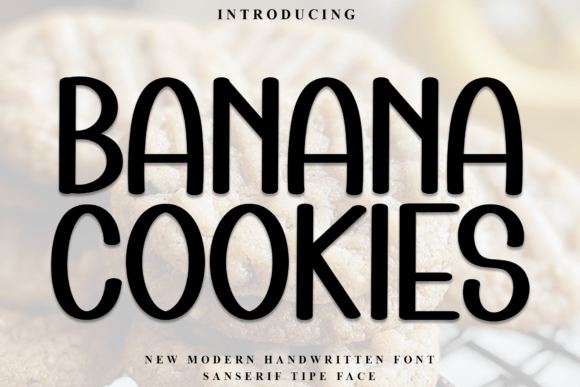
Introducing Banana Cookies Font: The Festive Typeface for Holiday Designs
The holiday season is upon us, and what better way to get into the spirit than with a font that’s as merry and bright as the twinkling lights on your Christmas tree? Look no further than Banana Cookies Font, a festive and fun typeface that’s perfect for adding a touch of whimsy to your holiday designs. In this article, we’ll take a closer look at what makes Banana Cookies Font so special and how you can use it to make your holiday projects shine.
What is Banana Cookies Font?
Banana Cookies Font is a decorative typeface that’s specifically designed to capture the magic of the holiday season. With its playful and whimsical flair, this font is perfect for adding a touch of enchantment to your designs. Whether you’re working on a greeting card, gift tag, or holiday-themed project, Banana Cookies Font is sure to bring a cheerful and nostalgic ambiance to your words.
The Features of Banana Cookies Font
So, what makes Banana Cookies Font so special? Here are just a few of the features that set it apart:
- Decorative elements: Banana Cookies Font features a range of decorative elements, including swashes, ligatures, and glyphs, that add a touch of whimsy to your designs.
- Festive and merry: Banana Cookies Font is specifically designed to capture the spirit of the holiday season, making it perfect for Christmas, Hanukkah, or any other winter holiday.
- Whimsical flair: This font has a playful and whimsical flair that’s sure to add a touch of enchantment to your designs.
Uses for Banana Cookies Font
Banana Cookies Font is a versatile typeface that can be used for a wide range of holiday projects, including:
- Greeting cards: Add a touch of whimsy to your holiday greeting cards with Banana Cookies Font.
- Gift tags: Make your gift tags stand out with this festive and fun font.
- Holiday-themed projects: Whether you’re working on a holiday party invitation, a Christmas cookie recipe, or a Hanukkah greeting, Banana Cookies Font is sure to add a touch of magic to your design.
Tips for Using Banana Cookies Font
Here are a few tips for getting the most out of Banana Cookies Font:
- Use it sparingly: While Banana Cookies Font is certainly a fun and festive typeface, it can be overwhelming if used too much. Try using it sparingly to add a touch of whimsy to your design.
- Pair it with a simple font: For a more dramatic effect, try pairing Banana Cookies Font with a simple font, such as Arial or Helvetica.
- Experiment with colors: Banana Cookies Font looks great in a range of colors, from bright and bold to soft and pastel.
The Benefits of Using Banana Cookies Font
There are many benefits to using Banana Cookies Font in your holiday designs, including:
- Instant holiday cheer: This font is sure to add a touch of holiday cheer to your designs, making it perfect for Christmas, Hanukkah, or any other winter holiday.
- Versatile: This font can be used for a wide range of holiday projects, from greeting cards to gift tags and more.
In conclusion, Banana Cookies Font is a festive and fun typeface that’s perfect for adding a touch of whimsy to your holiday designs. With its decorative elements, PUA encoding, and whimsical flair, this font is sure to bring a cheerful and nostalgic ambiance to your words. Whether you’re working on a greeting card, gift tag, or holiday-themed project, Banana Cookies Font is the perfect choice. So why wait? Download Banana Cookies Font today and let your typography shine with the magic of Beautiful Font!